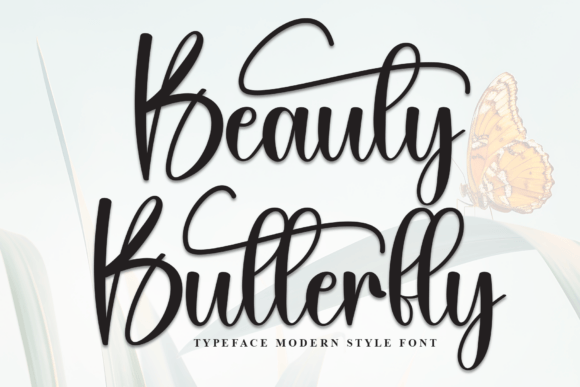
Unleashing Your Creativity with the Beauty Butterfly Font
Have you ever sat down with a blank sheet of paper, a pen in hand, and felt a rush of excitement as you began to brainstorm a new creative project? Maybe it was a wedding invitation, a birthday card, or a poster for a local event. Whatever it was, you knew you wanted to make it special – to add a personal touch that would make it truly unforgettable. That’s where the Beauty Butterfly Font comes in – a lovely handwritten font that adds a touch of elegance and whimsy to any design.
Designed to evoke a sense of charm and playfulness, the Beauty Butterfly Font is perfect for designers looking to add a personal touch to their projects. With its flowing curves and loops, it’s easy to see why this font is a valuable addition to any designer’s toolkit. Whether you’re working on a wedding invitation or a children’s book, the Beauty Butterfly Font is sure to bring a smile to the reader’s face.
Beauty Butterfly Font Key Features
- Unique Characteristics: Hand-drawn, whimsical design with intricate details and ornate flourishes
Beauty Butterfly Font Review
I recently had the chance to work with the Beauty Butterfly Font, and I must say it’s a visually stunning addition to any design project. ✨ The delicate, hand-drawn style and elegant curves make it perfect for creating a whimsical or feminine aesthetic.
- The font’s unique characteristics, such as the subtle flourishes and irregularities, give it a truly organic feel.
- The wide range of weights and styles available allows for a great deal of versatility and customization.
However, there are a few limitations to be aware of. ⚠️ The font’s size and resolution may not scale well in certain situations, leading to a loss of detail or clarity. Additionally, the font’s unique style may not be suitable for all types of projects or audiences.
Overall, I would say the Beauty Butterfly Font is a great choice for designers looking to add a touch of elegance and whimsy to their work. While it may have some limitations, its unique style and versatility make it a valuable addition to any design library.
The Beauty Butterfly Font is perfect for:
- Creative projects, such as invitations, posters, and brochures.
- Wedding and event designs.
- Food and fashion branding.
For best results, pair the Beauty Butterfly Font with complementary colors and images to create a visually appealing design.
Alternatives to Beauty Butterfly Font
Great Vibes is a beautiful, elegant script font perfect for creating a whimsical and romantic atmosphere. It is ideal for use in wedding invitations, greeting cards, and other creative projects. Great Vibes is similar to Beauty Butterfly Font in its flowing and cursive nature, but it has a more refined and sophisticated feel.
Carolyna Pro is a modern, luxurious script font that exudes elegance and sophistication. It is perfect for use in high-end branding, luxury packaging, and other projects where a touch of glamour is needed. Compared to Beauty Butterfly Font, Carolyna Pro has a more dramatic and opulent feel, making it ideal for use in high-end applications.
Carter Script Font
Carter Script is a classic, elegant script font that is perfect for use in traditional and vintage-inspired projects. It has a more formal and refined feel compared to Beauty Butterfly Font, making it ideal for use in wedding invitations, formal announcements, and other high-end projects.